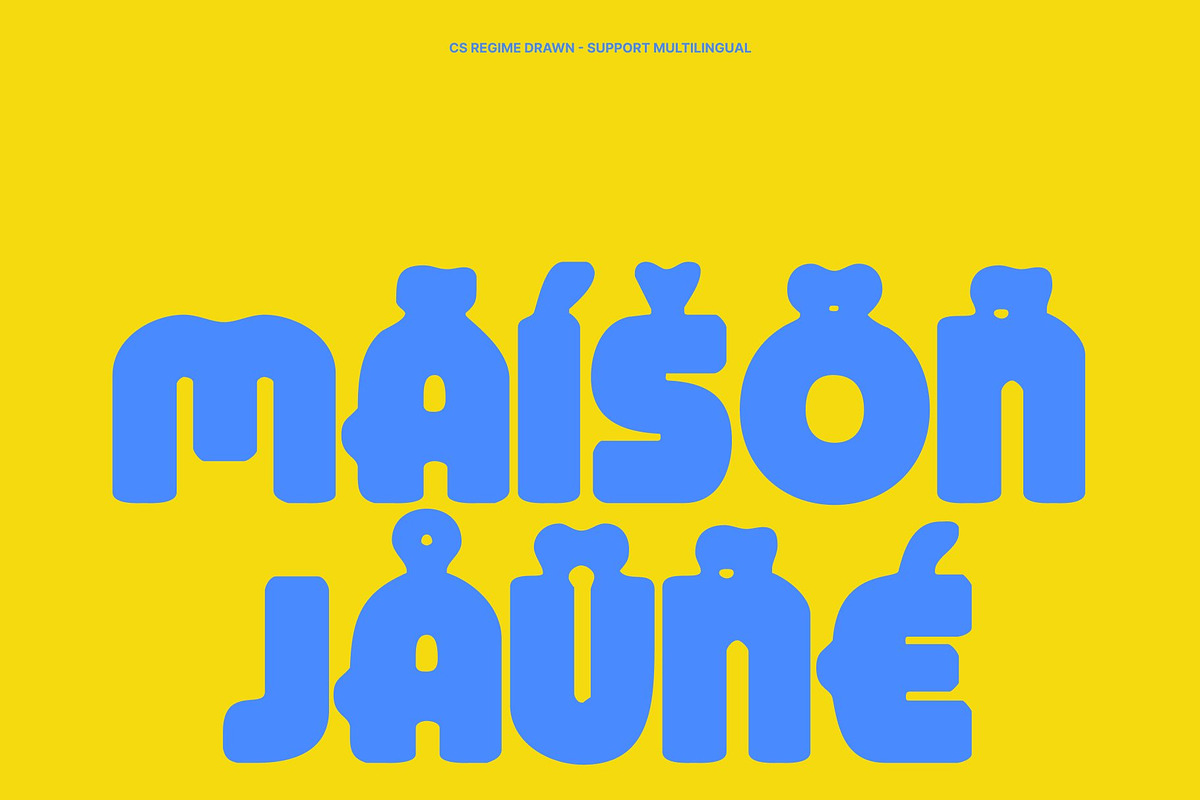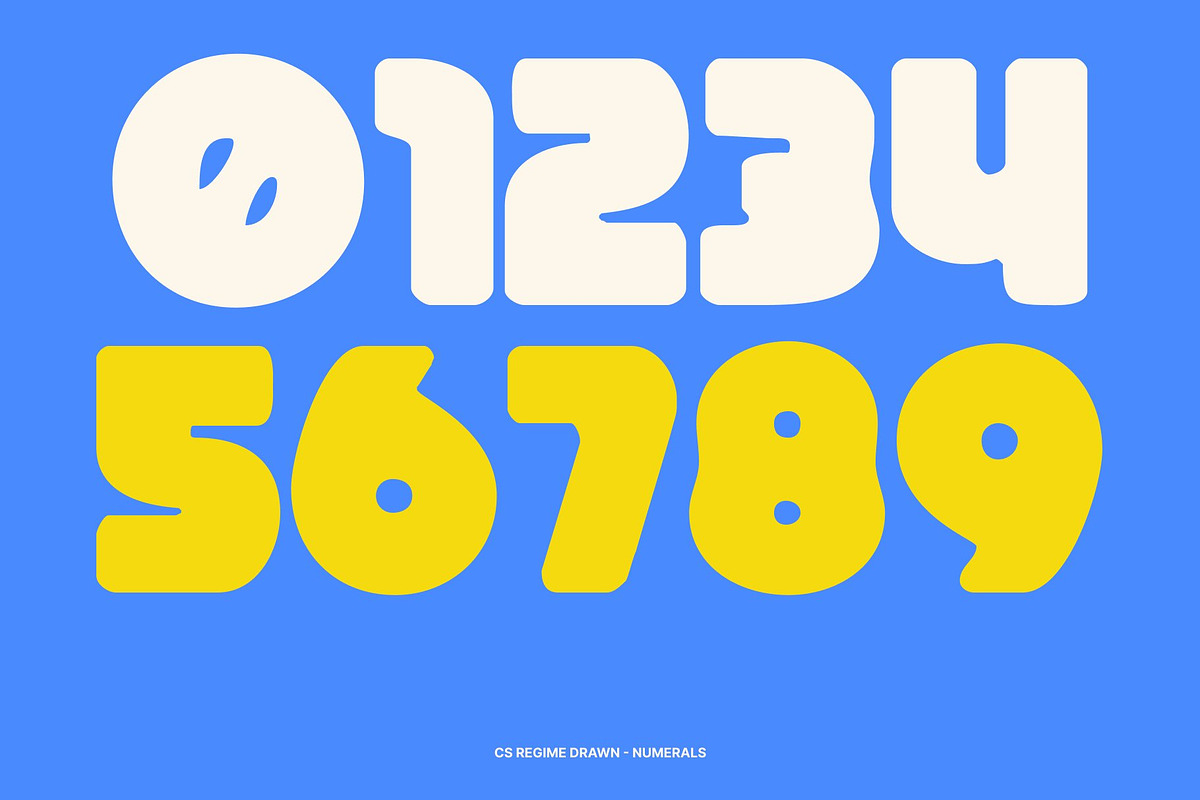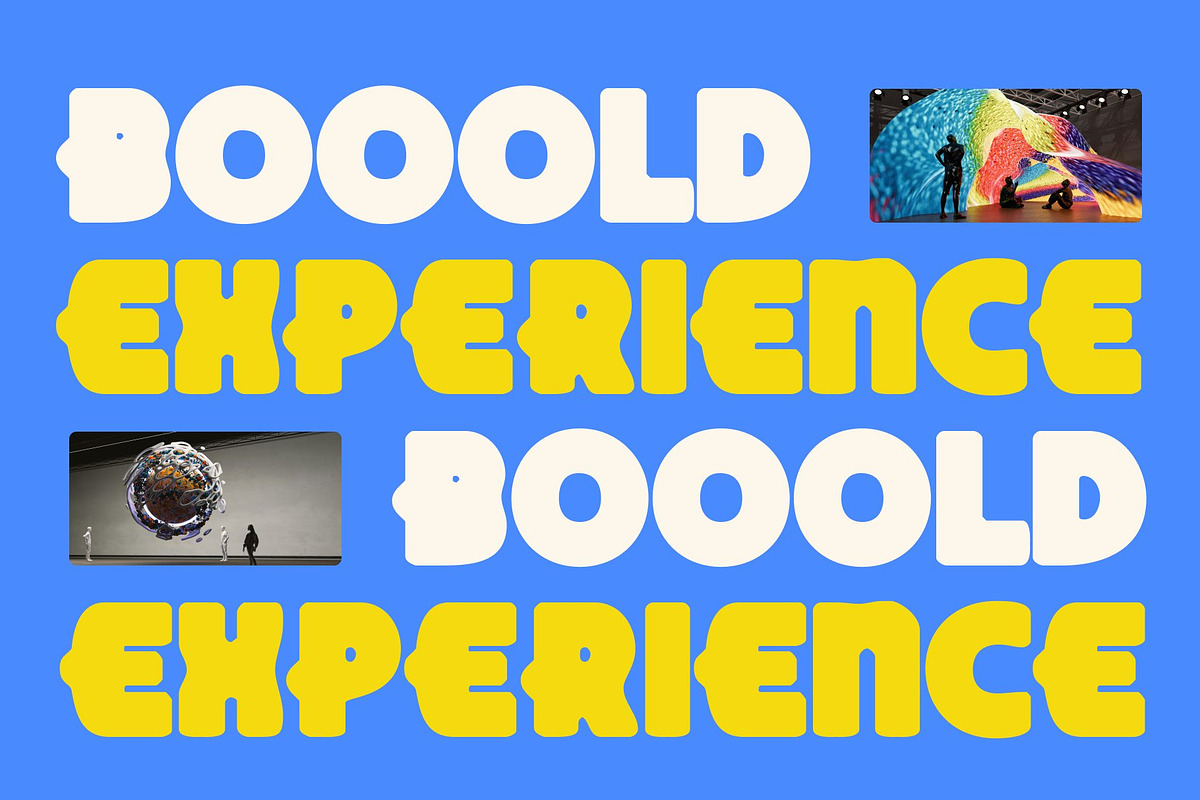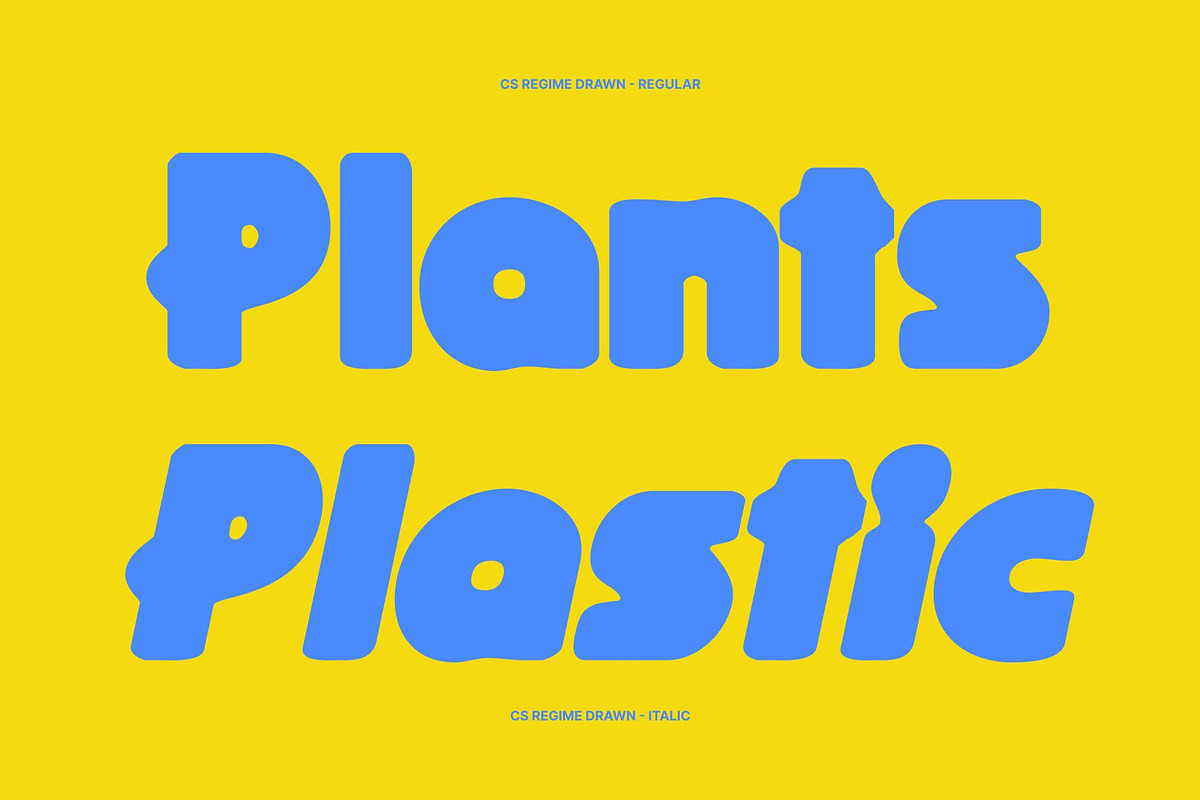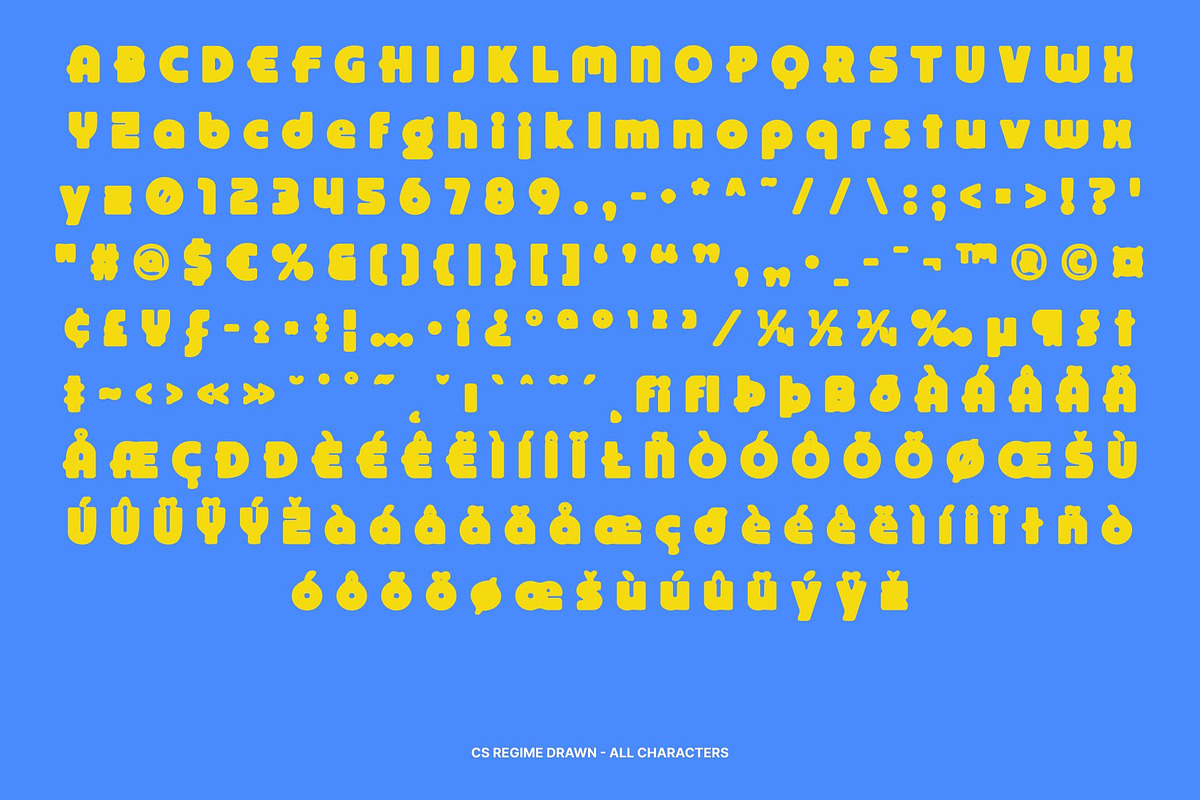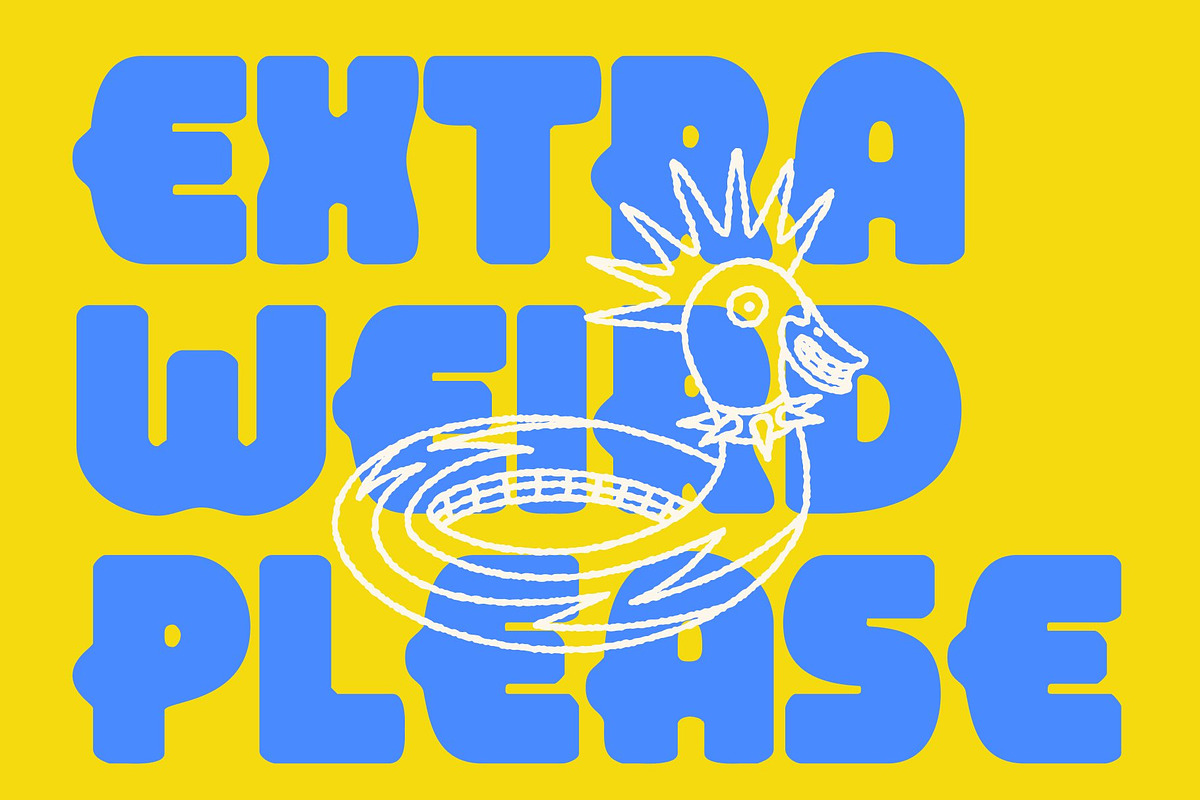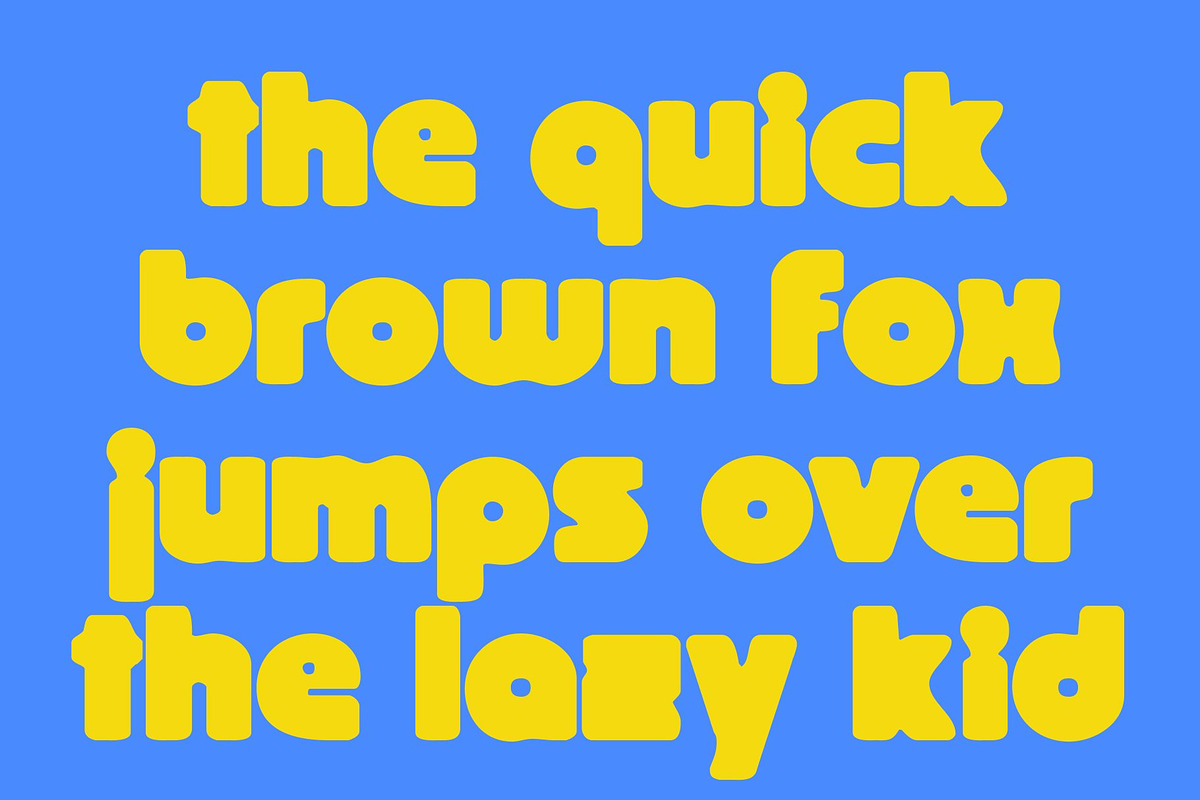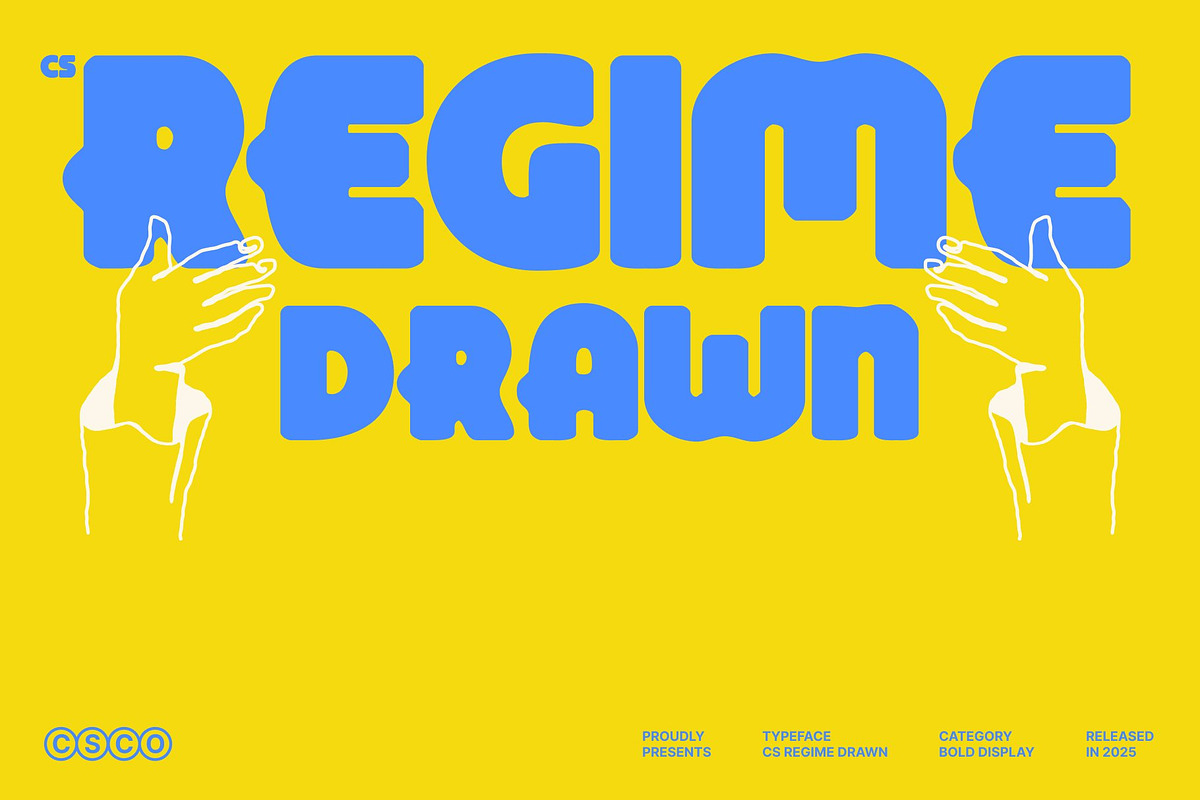
CS Regime Drawn
CS Regime Drawn – Bold Display Font with Bauhaus-Inspired Geometry
Bold Bauhaus Display with Hand-Drawn Character This is a bold display font that blends retro charm with modern design sensibility. Rooted in classic Bauhaus principles, this typeface embraces geometric clarity, functional form, and modular construction. The added drawn texture introduces a subtle handcrafted edge, giving the font warmth and personality while preserving its clean, structured aesthetic.
Geometric Shapes with Modular Structure Each letterform is built from fundamental geometric elements circles, straight lines, and simplified curves forming a cohesive and visually balanced typographic system. This modular construction creates bold characters with strong rhythm and consistency. The precise geometry ensures clarity and impact, while the drawn details soften the structure with expressive nuance.
Retro Influence with Modern Expression This font channels the spirit of early modernist and Bauhaus design, celebrating form, function, and visual harmony. Its retro influence adds historical depth and character, while the bold weight and contemporary execution keep the font feeling fresh and relevant. This balance makes it ideal for designers who want to reference iconic design heritage with a modern voice.
Versatile for Posters, Branding, and Editorial Layouts Designed for strong visual impact, this font performs exceptionally well in posters, branding systems, editorial layouts, and creative campaigns. Its bold geometry ensures excellent visibility, while the modular, hand-drawn style adds sophistication and visual interest perfect for designs that aim to be confident, expressive, and timeless.